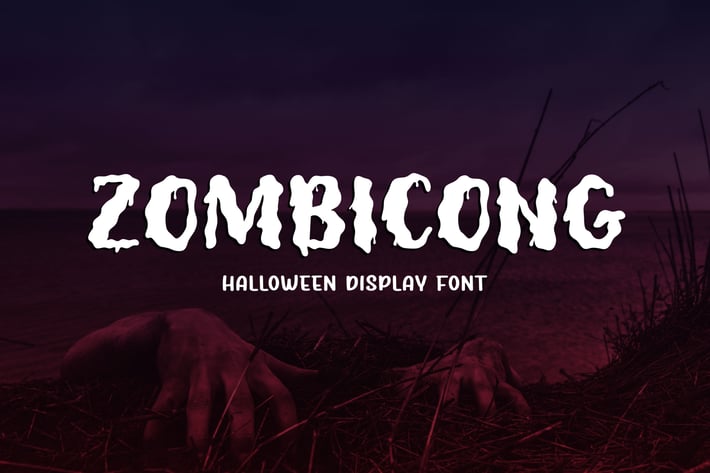
Zombicong - Horror Display Font
Feel the scariness of ZOMBICONG, a Halloween display font created by us. This font is suitable for Halloween event, comic, flyer, poster, banner, movie title, book cover, card, merchandise, etc. Try this font and ready to scream!